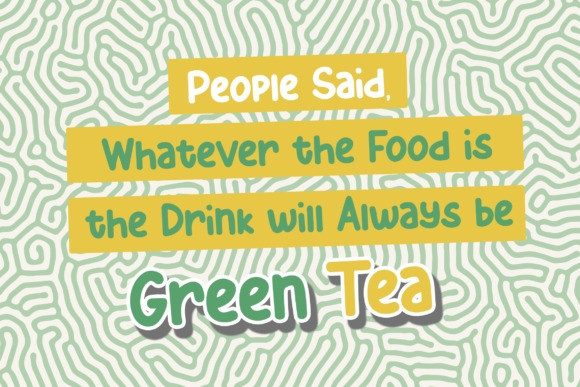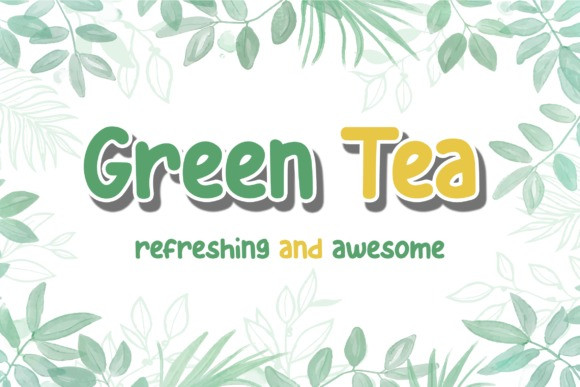
Green Tea Font
Green Tea Display Font is a sweet, refreshing, and awesome script font with characters that have a strong and cute shape. Its unique style makes it incredibly fitting to a large pool of designs. It is very suitable for many crafting projects or to complete your children’s book illustrations. Try and use this font to enhance your designs!